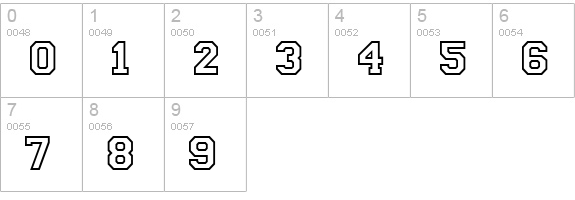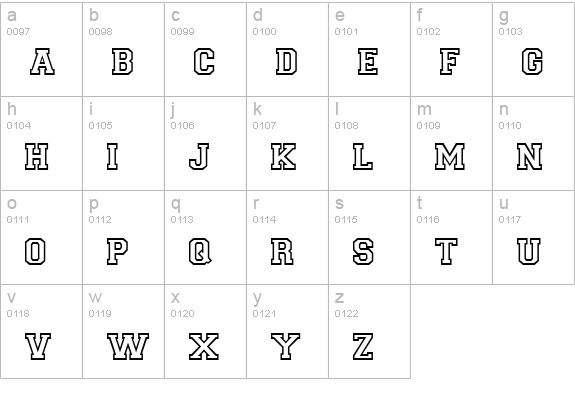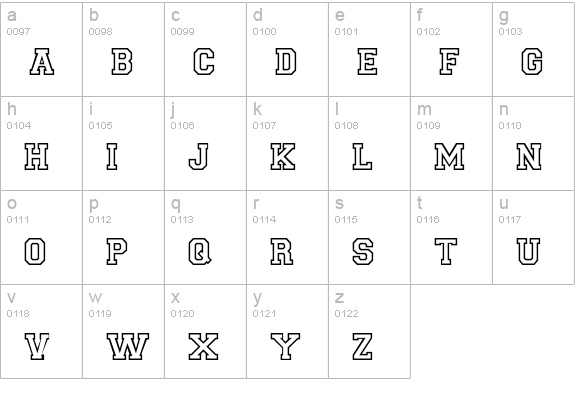
Letter Sweater Open Display SSi Bold Font Details
Letter Sweater Open Display SSi Bold is a strong, high-contrast variant in the Letter typeface family \xE2\x80\x94 well suited to headlines, attention-grabbing titles, and strong calls-to-action.
The Letter Sweater Open Display SSi Bold font is a bold and eye-catching typeface that exudes a sense of classic charm and nostalgia. Its strong and confident letterforms make it perfect for headlines, logos, and any design project that requires a touch of vintage appeal. This font is freely available to download at FontsMarket.com, providing you with the opportunity to elevate your designs without any cost. With its generous availability, you can easily incorporate this font into a wide range of creative projects, from posters and advertisements to websites and branding materials. The bold and distinctive nature of the Letter Sweater Open Display SSi Bold font allows it to make a lasting impression, making it a valuable asset for graphic designers, typographers, and anyone seeking to add a touch of retro flair to their work. Its versatility ensures that it can be used in various design styles, whether you're aiming for a modern twist on a classic design or going for a full-on vintage look. With its clean and legible letterforms, the Letter Sweater Open Display SSi Bold font is highly readable even at smaller sizes, making it suitable for body text as well as headlines. Its bold weight ensures that your message will stand out and capture the attention of your audience. Embrace the charm and timeless appeal of the Letter Sweater Open Display SSi Bold font, and bring a touch of nostalgia to your designs. Download it for free at FontsMarket.com and let your creativity flourish with this versatile and captivating typeface.